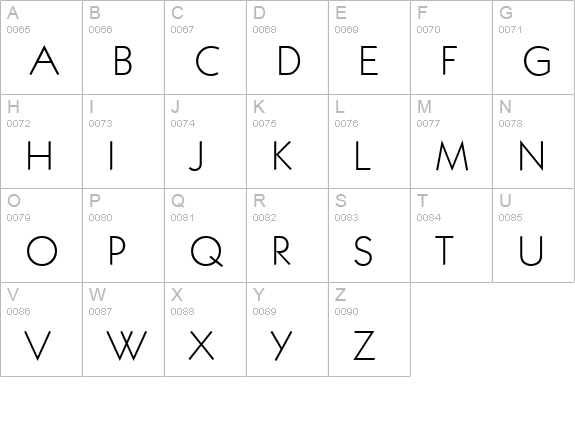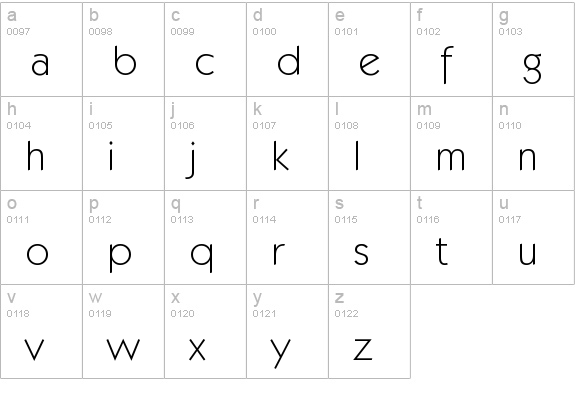
KoblenzSerial-Xlight-Regular Font Details
KoblenzSerial-Xlight-Regular is the standard, neutral variant in the KoblenzSerial typeface family \xE2\x80\x94 well suited to general body text, paragraphs, and standard typographic work.
KoblenzSerial-Xlight-Regular is a sleek and elegant font that exudes sophistication and modernity. With its clean lines and subtle curves, this typeface is perfect for a wide range of design projects, from branding to editorial layouts. The light weight of the font adds a touch of delicacy and refinement to any text, making it suitable for both headings and body copy. What sets KoblenzSerial-Xlight-Regular apart is not just its aesthetic appeal, but also its accessibility. This font is available for free download at FontsMarket.com, making it an excellent choice for designers looking for high-quality typefaces without breaking the bank. Whether you're working on a personal project or a professional commission, KoblenzSerial-Xlight-Regular is sure to elevate your designs and leave a lasting impression on your audience.